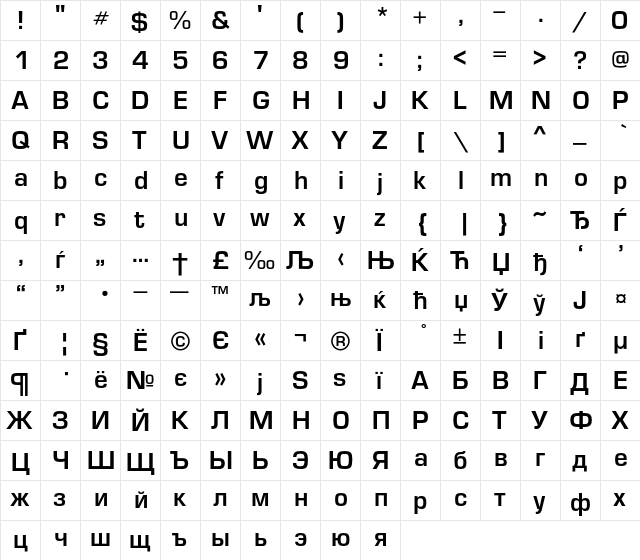
EuropeDemi Regular
Design Context for EuropeDemi Typeface
EuropeDemi is a composed and adaptable typeface that performs quietly and consistently across a wide range of design contexts.